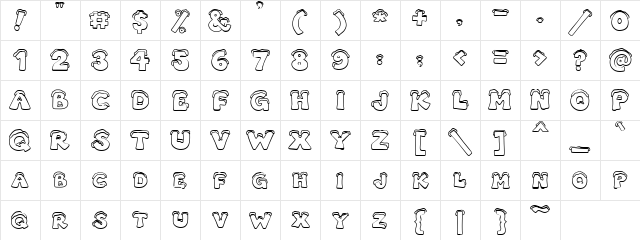
PC Snow Caps Regular
Design Context for PC Snow Caps
PC Snow Caps is a composed and adaptable typeface that performs quietly and consistently across a wide range of design contexts.
Pro Tip: Use PC Snow Caps in both headline and body roles to test its range before committing to a single application.